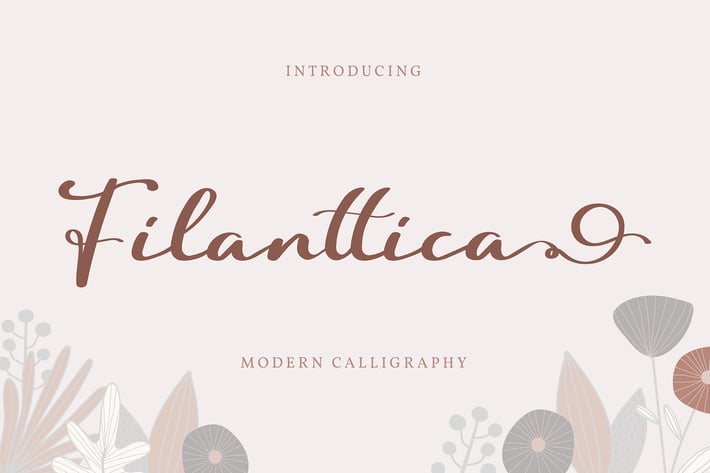
Filanttica | Modern Calligraphy Font
Filanttica | Modern Calligraphy Font with a calligraphy style, So beautiful on invitation like greeting cards, branding materials, business cards, quotes, posters, and more!